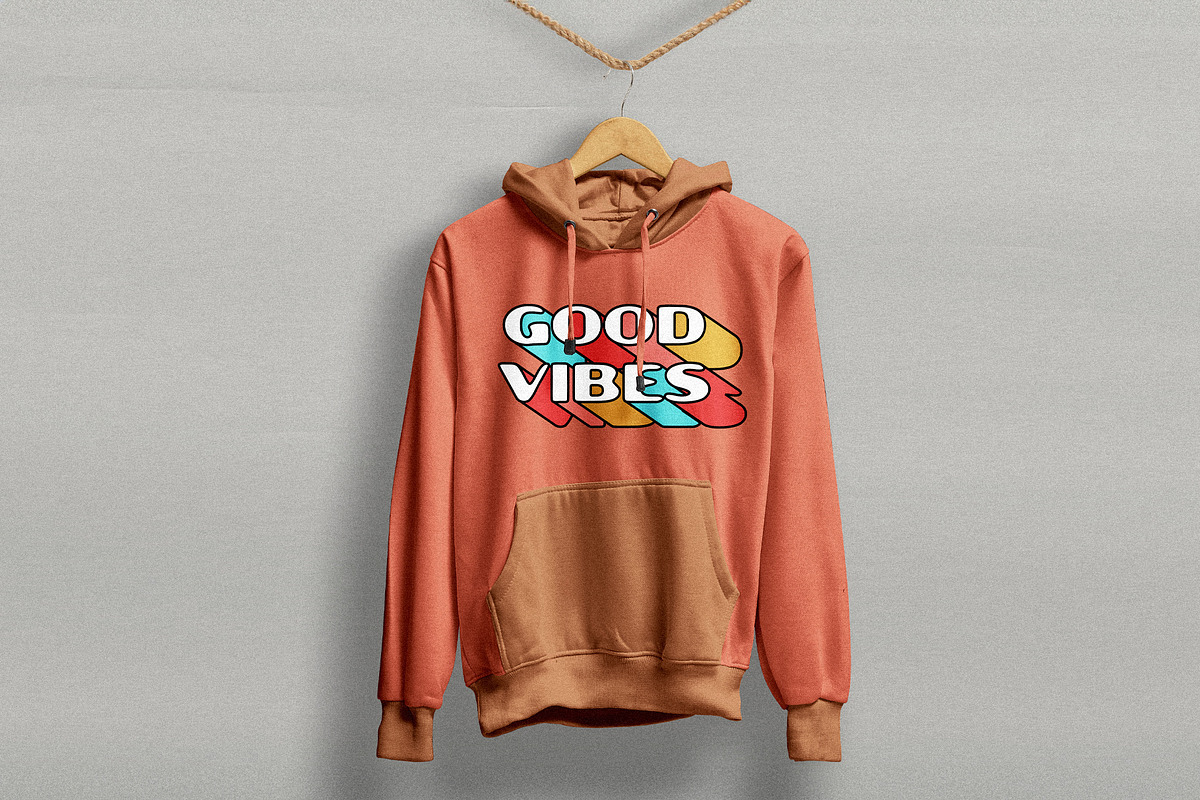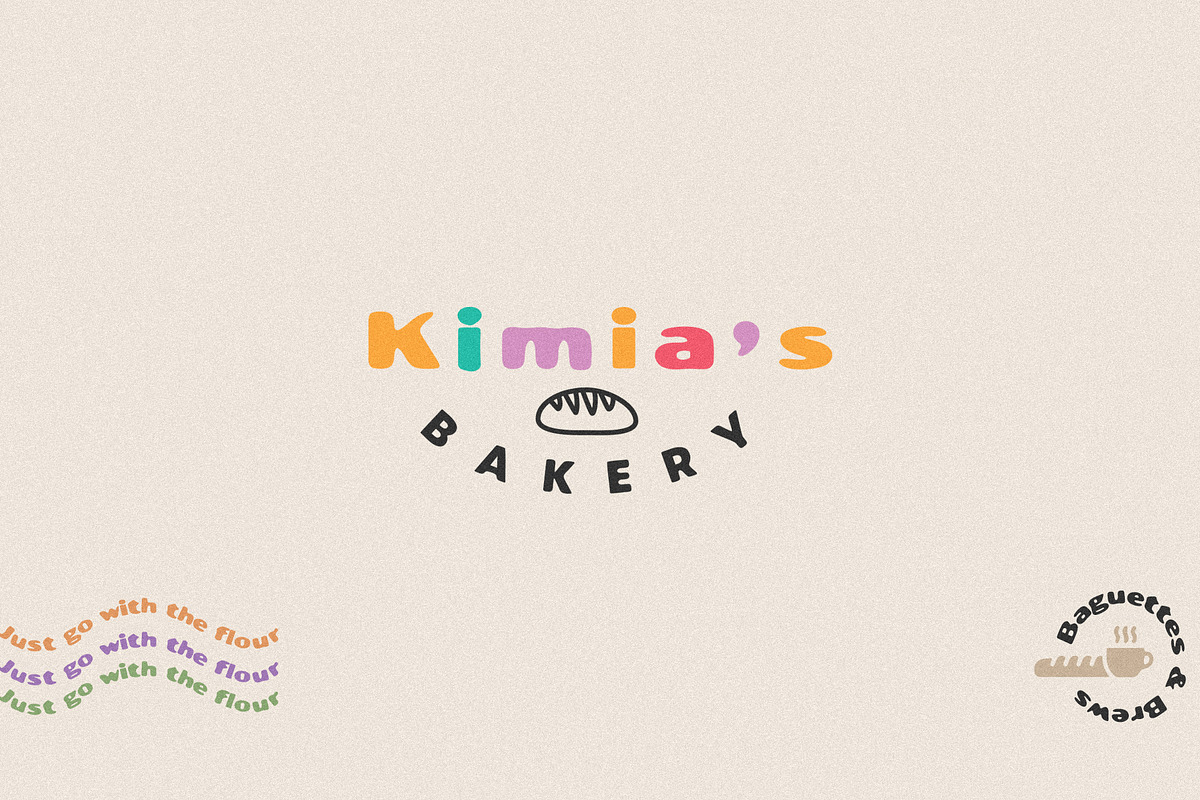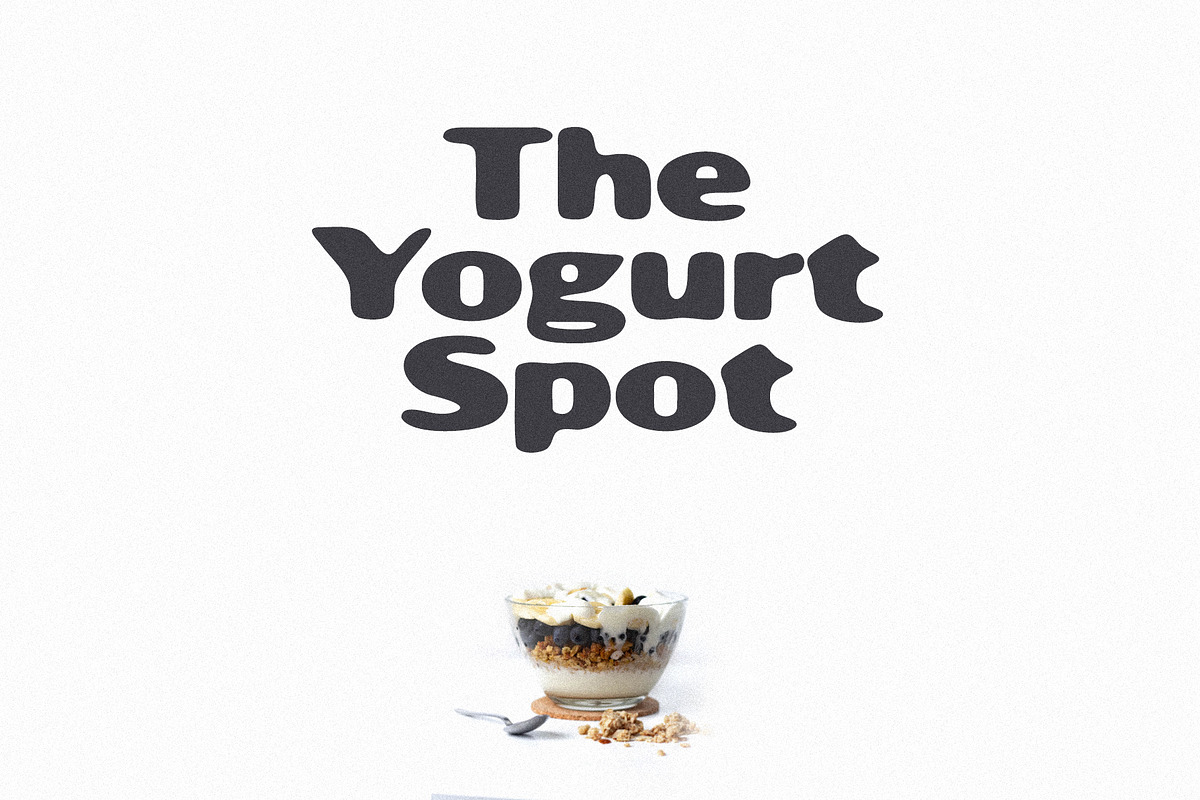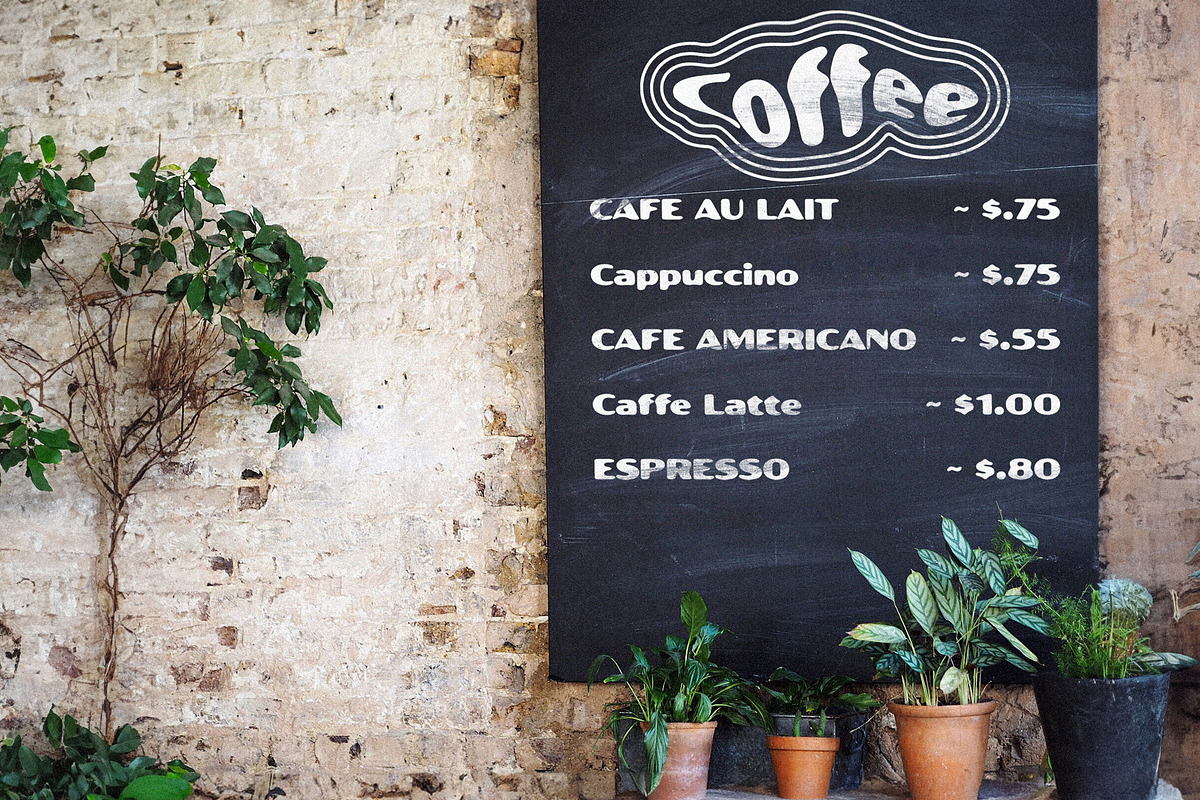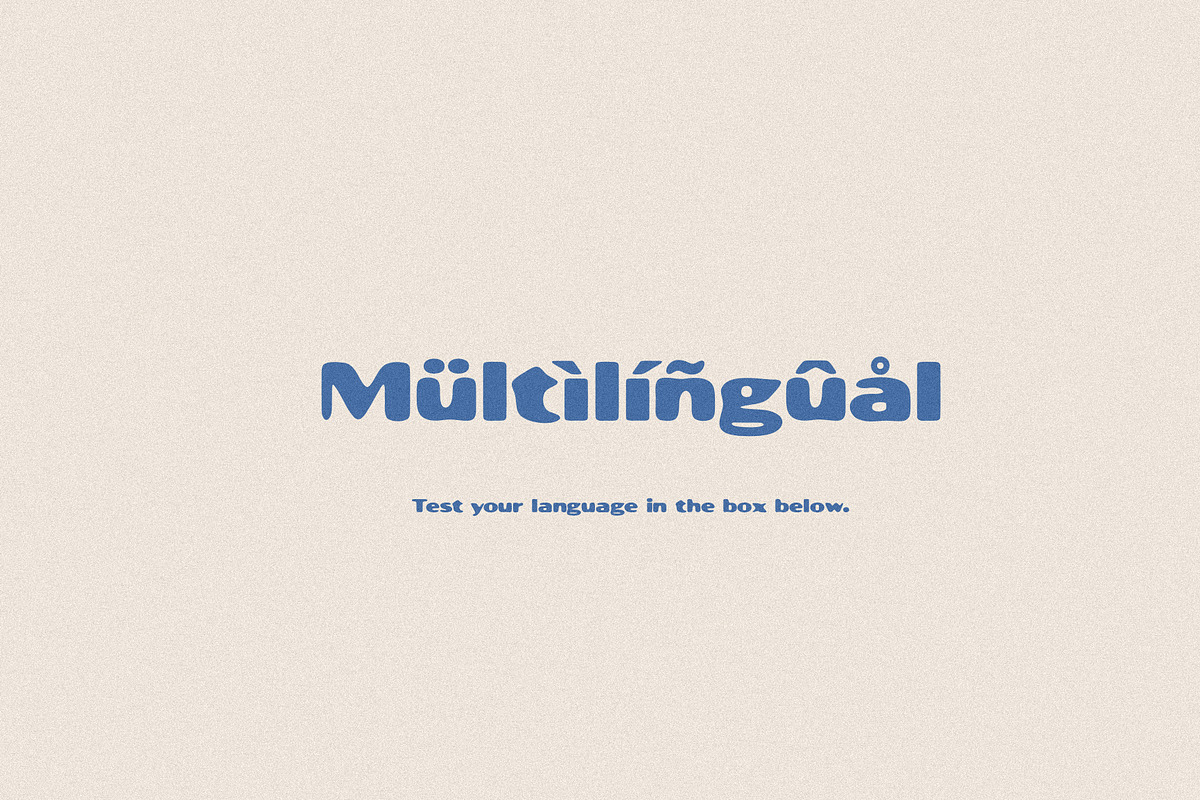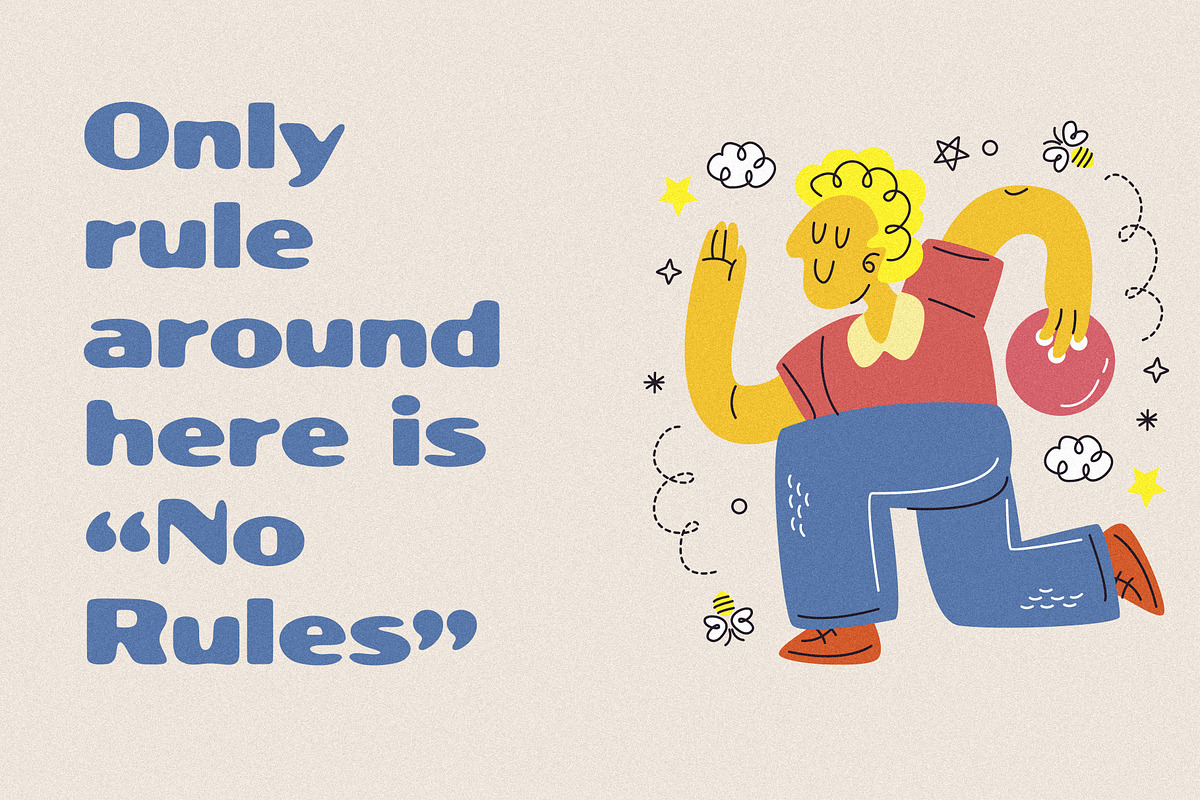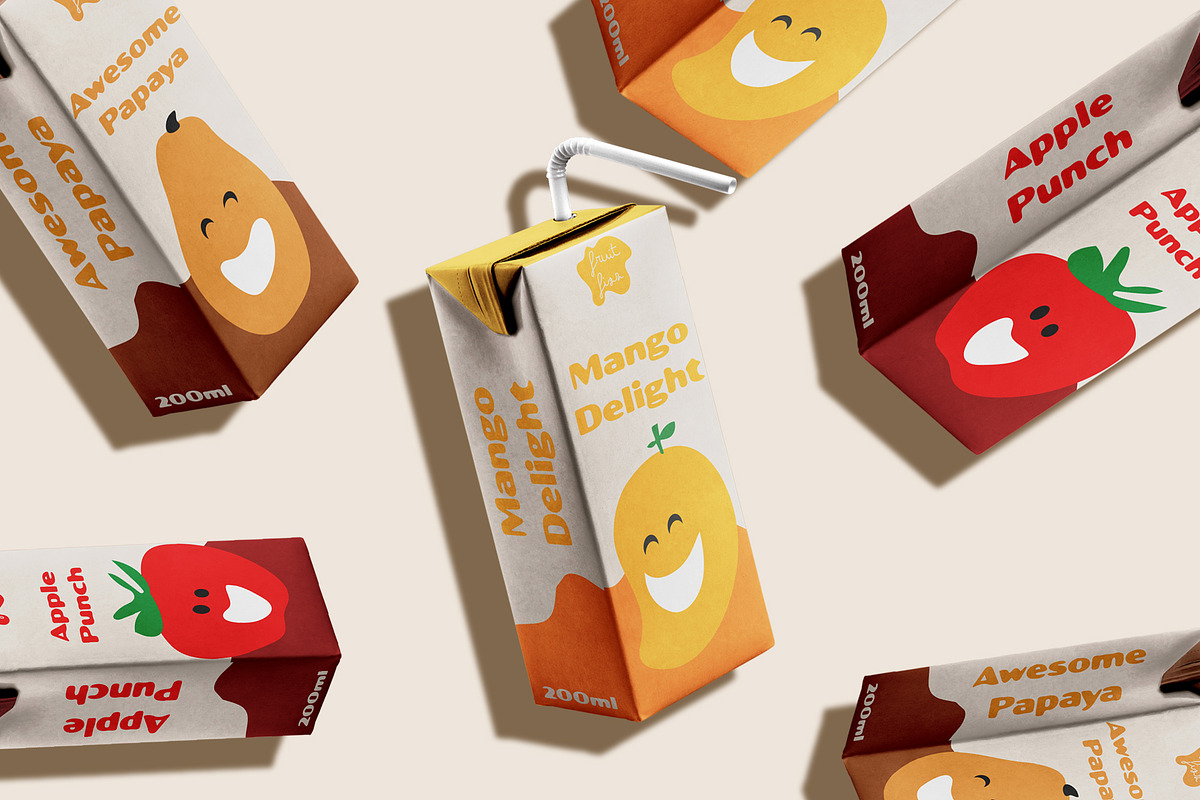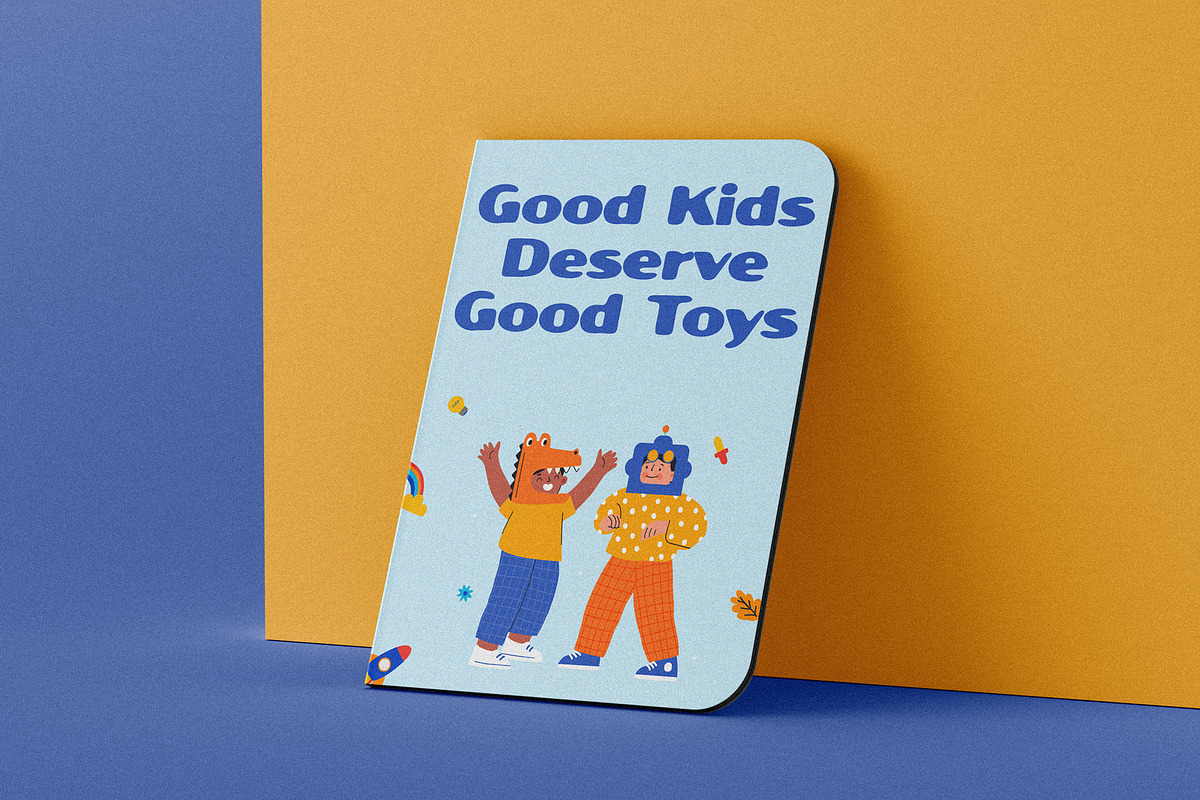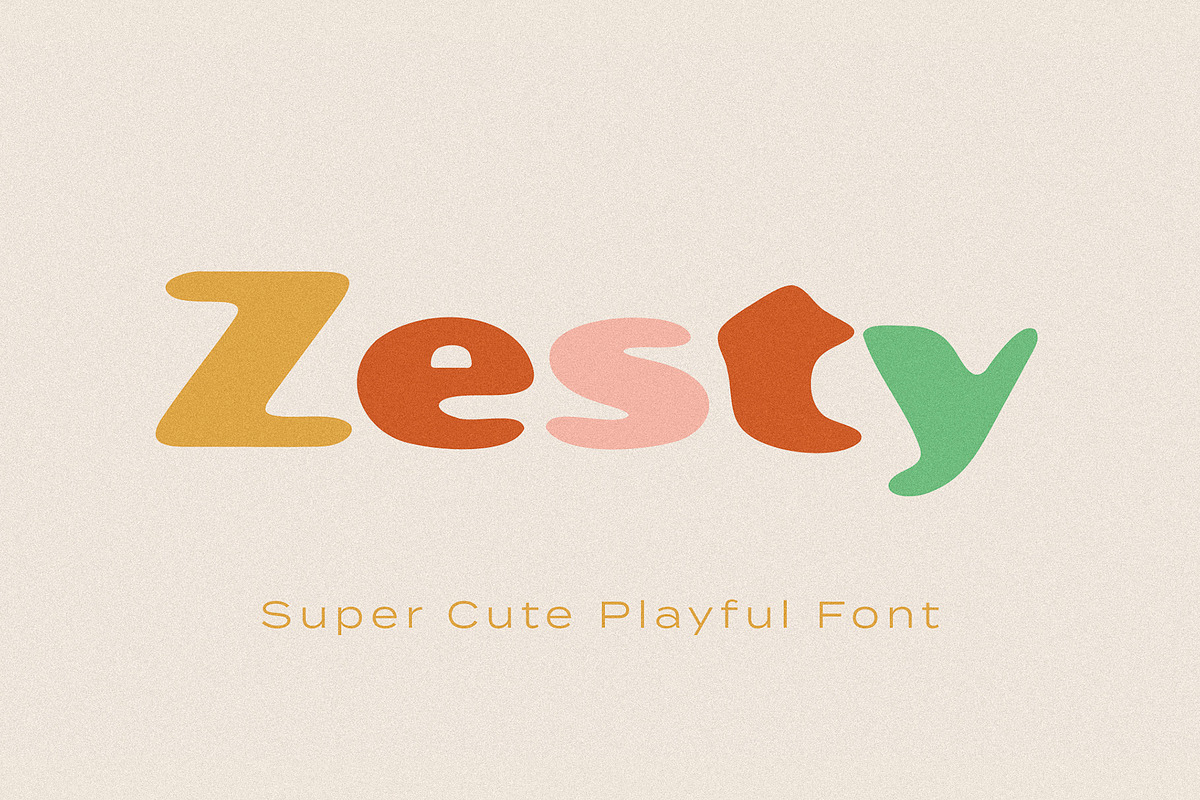
Zesty - Super Cute Sans
Discover "Zesty" – a cute and playful sans font that adds charm to your designs!
Perfect for invitations, logos, and social media, Zesty brings a lively touch to any project. Energize your creations with Zesty today!
Zesty is a multilingual font supporting different languages. Please test your language in the preview box below.